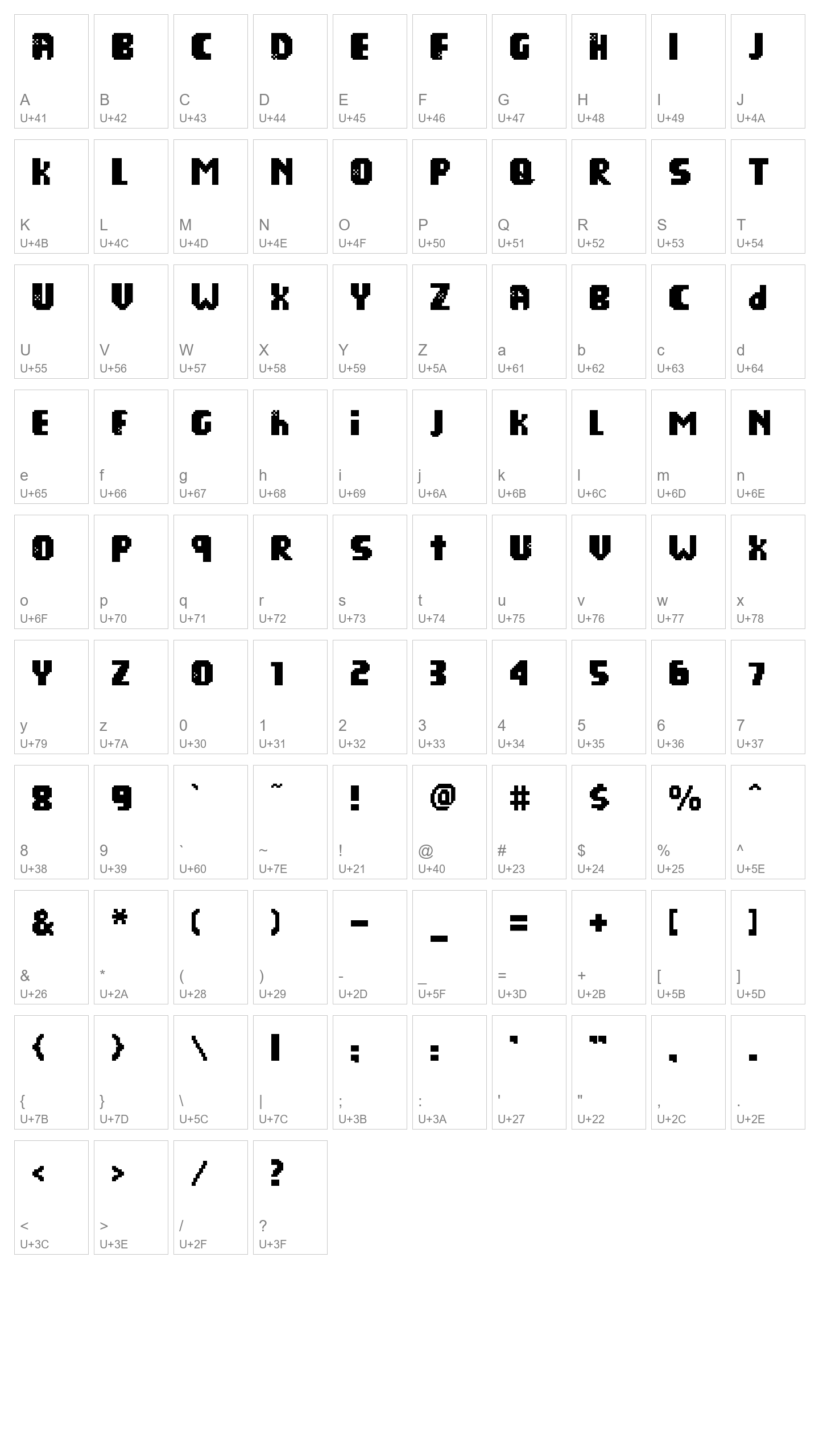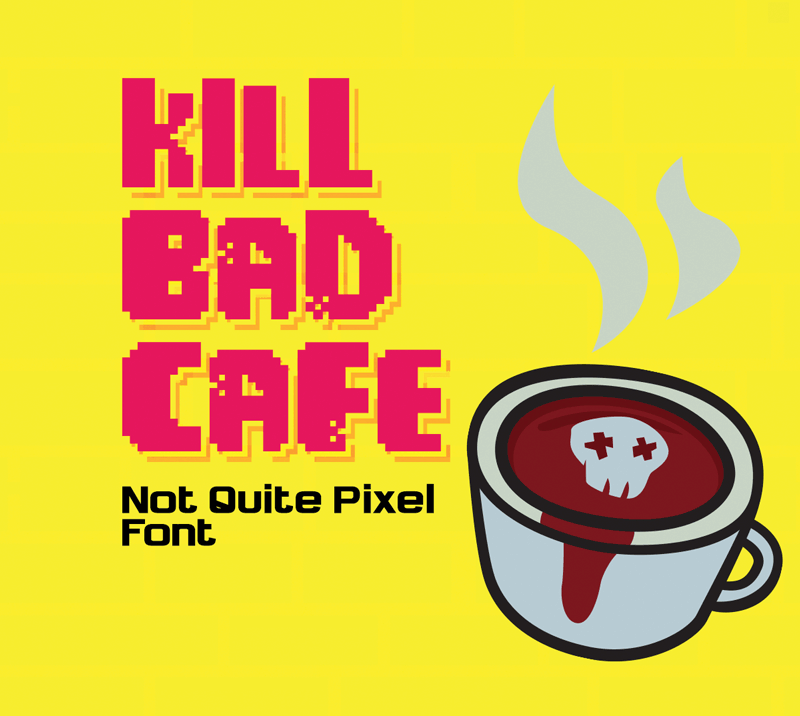
Kill Bad Cafe
Not quite pixel perfect, but ready to pack a punch.
Kill Bad Cafe is the retro font of your dreams! Inspired by old NES games, KBC is a modern take on a retro pixel font.
KBC includes an uppercase and lower caps alphabet, and even foreign characters.
Need a logo for your YouTube game channel? Bam! Need to spice up your new retro mobile game? Pow-za!
Take your designs out to the cafe!